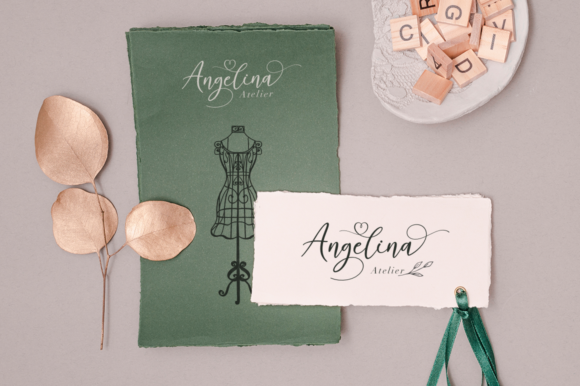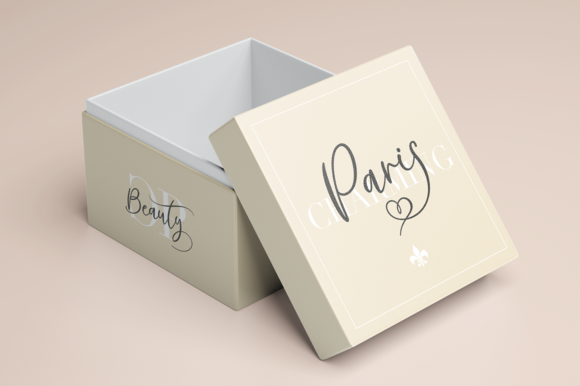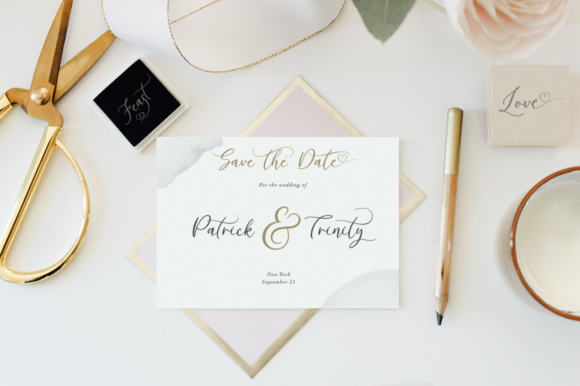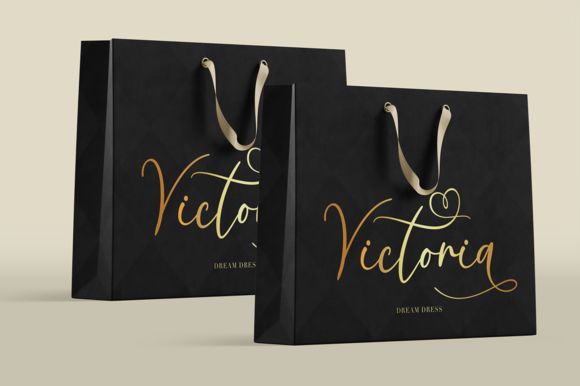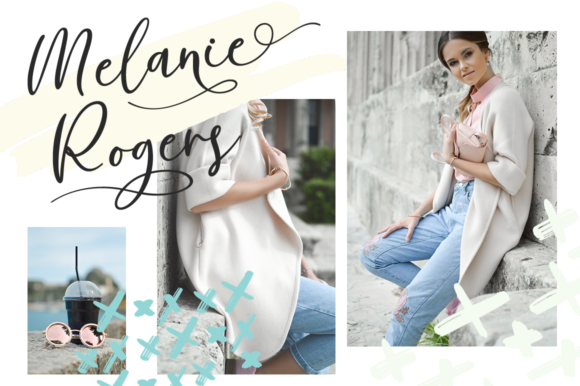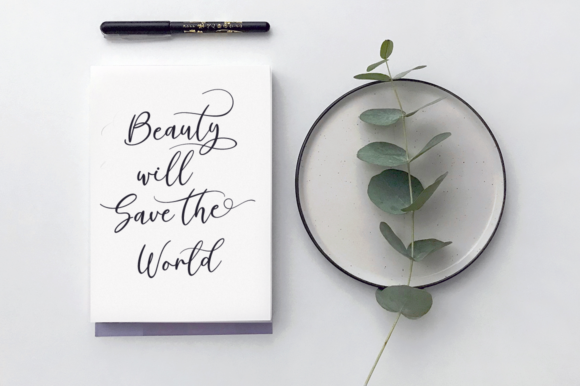
Introduction to Milady Font
Have you ever found yourself pouring your heart into a design project, only to realize that the perfect font is missing? This is exactly what happens when you’re working on a romantic wedding invitation, a love letter, or a creative project that screams for a touch of elegance and whimsy. In those moments, the right font can make all the difference.
Enter the lovely Milady Font, a script font inspired by romance, love, and modern calligraphy. This beautiful font is a game-changer for designers who crave a high-quality, personalized appearance for their creative projects. Whether you’re working on a free download or a paid design resource, Milady Font is sure to bring a touch of sophistication and charm to your work.
With its transparent background and delicate strokes, Milady Font is the perfect addition to any design project that requires a romantic or whimsical feel. As a valuable design resource, this font is a must-have for any creative who wants to elevate their work and make a lasting impression.
Key Features of Milady Font
- High-quality font design for creative projects: Milady Font is a professional font that offers a unique and elegant touch to any design.
- Professional-grade font: Milady Font is designed to meet the needs of professional designers and artists, offering a high level of quality and sophistication.
Honest Review: Milady Font
I recently stumbled upon the Milady Font while searching for a high-quality design resource for a creative project. As a designer, I was immediately drawn to its elegant and sophisticated style. Upon closer inspection, I found that the font has a transparent background, making it a great choice for overlaying text on images.
Here are some things that work well about the Milady Font:
- ✨ Elegant and sophisticated style
- ✨ High quality design
- ✨ Transparent background for easy text overlay
- ⚠️ Limited font styles and weights available
- ⚠️ Not ideal for use in large blocks of text due to its elegant, script-like design
Overall, I’m impressed with the Milady Font. It’s a great design resource for any creative project that requires a touch of elegance and sophistication. Just be aware of its limitations, and you’ll be golden!
Tips for Getting the Most Out of Milady Font
Experiment with different font sizes, colors, and styles to achieve a unique look. Combine Milady Font with other design elements to create a visually appealing design.
Milady Font is ideal for various design projects, including wedding invitations, business cards, and social media graphics. Its transparent background makes it perfect for overlaying text on images or backgrounds.